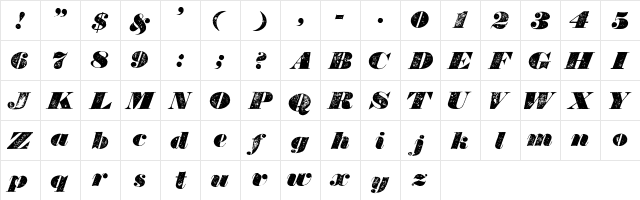
Bullion Italic WF Regular
Design Context for Bullion Italic WF Typeface
Bullion Italic WF is a composed and adaptable typeface that performs quietly and consistently across a wide range of design contexts. The dynamic lean of this cut emphasises speed and emphasis in any layout.
Pro Tip: Use Bullion Italic WF for emphasis, pull quotes, and subheadings where its slanted energy can add rhythm to the layout.